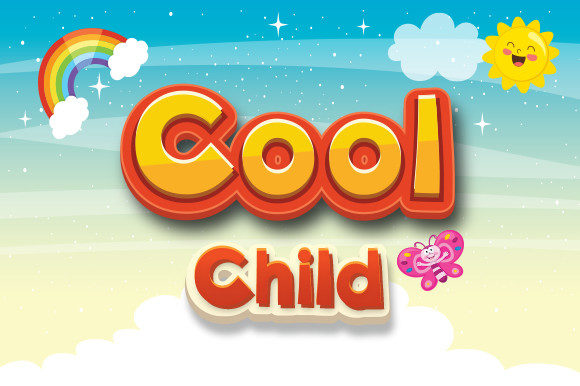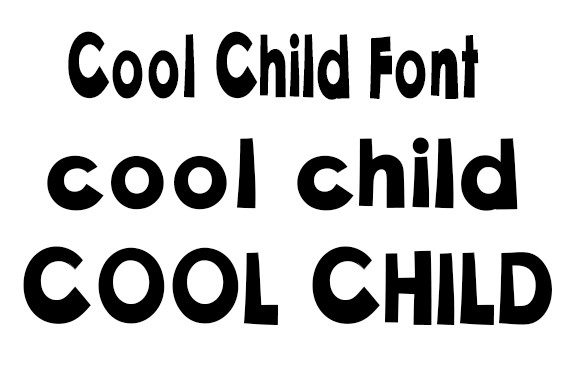
Introducing Cool Child Font: The Ultimate Choice for Fun and Friendly Designs
Are you a designer or crafter looking for a font that can add a touch of beauty and playfulness to your creations? Look no further than Cool Child Font! This fun and friendly display font is perfect for a wide range of design projects, from cartoon-related designs to children’s games, quotes, titles, brand names, book covers, posters, and more.
What Makes Cool Child Font So Special?
Cool Child Font is a unique and versatile font that is sure to capture the attention of your audience. Its fun and friendly design makes it perfect for projects that require a playful and youthful touch. The font features a distinctive and stylized lettering style that is both elegant and whimsical, making it ideal for a variety of design applications.
Perfect for Cartoon-Related Designs
If you’re working on a design project related to cartoons, Cool Child Font is an excellent choice. The font’s playful and fun design perfectly complements cartoon characters and themes, making it perfect for projects such as:
- Cartoon character designs
- Animated movie titles
- Cartoon-style posters and flyers
- Children’s book covers
Ideal for Children’s Games and Quotes
Cool Child Font is also an excellent choice for designing children’s games and quotes. The font’s friendly and approachable design makes it perfect for:
- Children’s game titles and logos
- Inspirational quotes for kids
- Fun and playful slogans
- Educational materials for children
Great for Titles, Brand Names, and Book Covers
Cool Child Font is not just limited to cartoon-related designs and children’s games. Its elegant and stylish design makes it perfect for:
- Titles and headings for books and magazines
- Brand names and logos
- Book covers and dust jackets
Why Choose Cool Child Font?
So why choose Cool Child Font for your design projects? Here are just a few reasons:
- Unique and versatile design: Cool Child Font features a distinctive and stylized lettering style that is both elegant and whimsical.
- Perfect for a wide range of design projects: From cartoon-related designs to children’s games, quotes, titles, brand names, book covers, and posters, Cool Child Font is a great choice for any project that requires a touch of beauty and playfulness.
- Easy to read and understand: Despite its playful design, Cool Child Font is easy to read and understand, making it perfect for use in a variety of design applications.
- High-quality and professional design: Cool Child Font is a high-quality and professional font that is sure to impress your audience.
In conclusion, Cool Child Font is a fun and friendly display font that is perfect for designers and crafters looking to add a touch of beauty and playfulness to their creations. With its unique and versatile design, Cool Child Font is ideal for a wide range of design projects, from cartoon-related designs to children’s games, quotes, titles, brand names, book covers, and posters. So why wait? Download Cool Child Font today and start creating stunning designs that are sure to capture the attention of your audience!
Key Features of Cool Child Font
- Fun and friendly display font
- Unique and stylized lettering style
- Perfect for cartoon-related designs, children’s games, quotes, titles, brand names, book covers, and posters
- Elegant and whimsical design
- High-quality and professional design